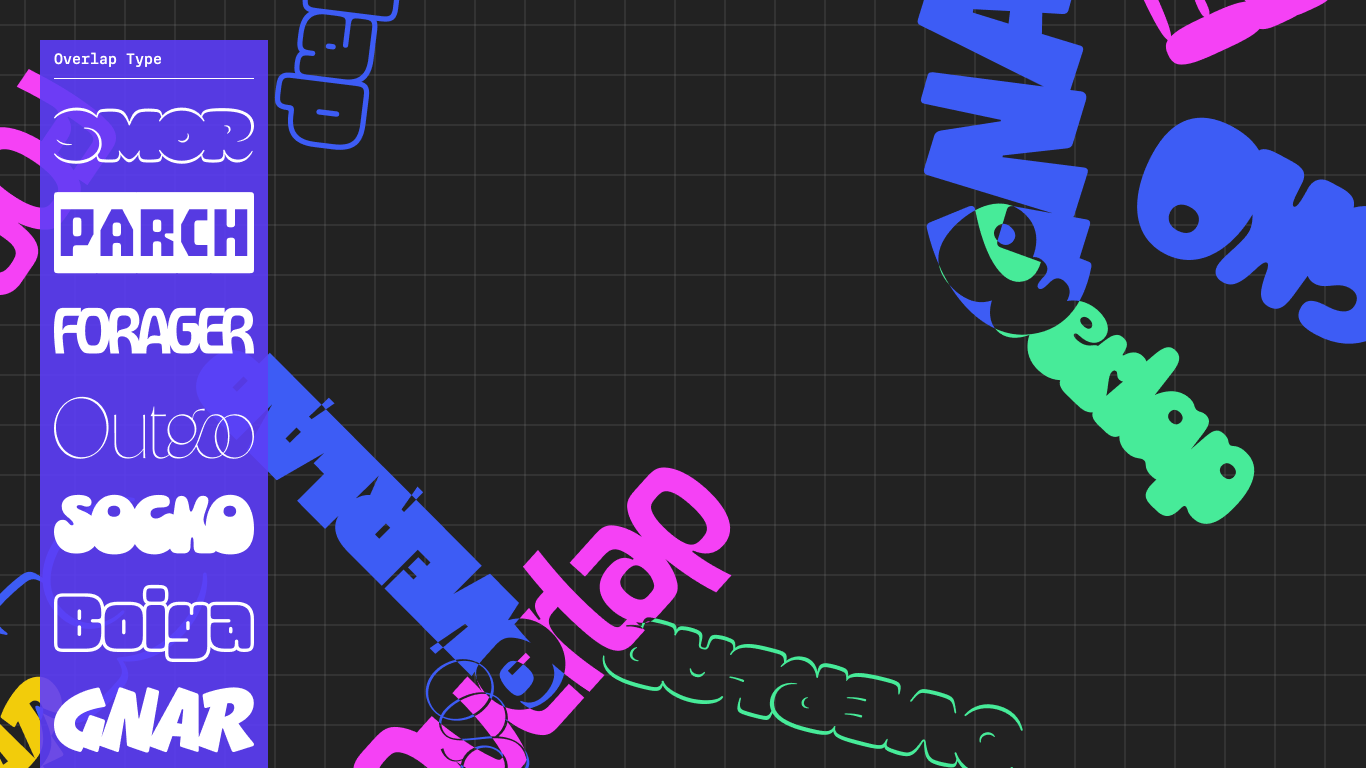
Overlap Type
Overlap Type was established in 2020 by Kel Troughton, a designer based in Oakland, California, and the creative force behind Overlap Type. Overlap Type is distinguished by its experimental approach to type design, focusing on intentional overlapping of letterforms. This concept is rooted in Troughton's background in graffiti, where overlapping letters are common. The foundry aims to challenge conventional typographic rules and explore new ideas in display type. Notable fonts include Parch, inspired by weathered vinyl signs, and Forager, a versatile sans-serif family with unique overlapping styles. The foundry collaborates with designers like Libbie Bischoff, James Plattner, and Jacob Cummings, fostering a creative community around innovative type design.